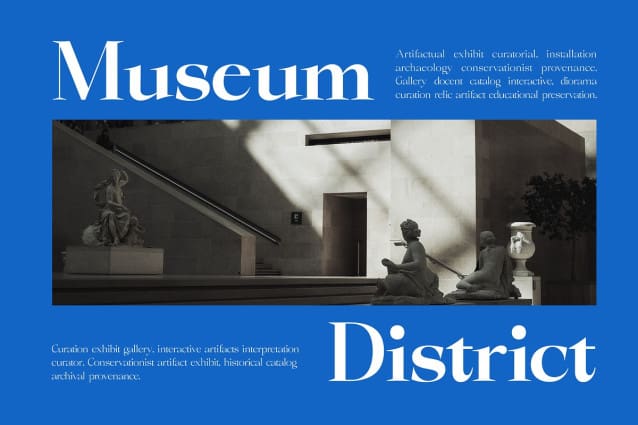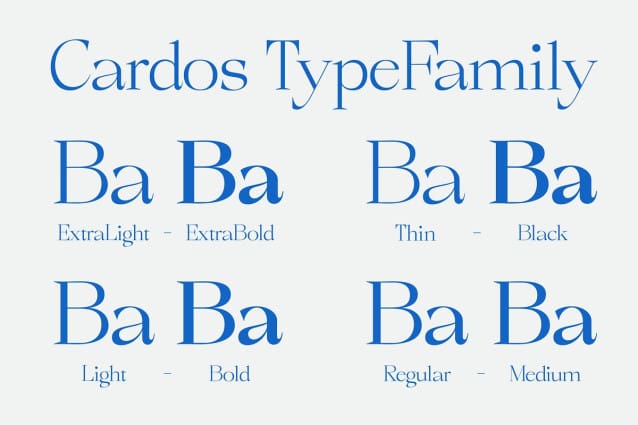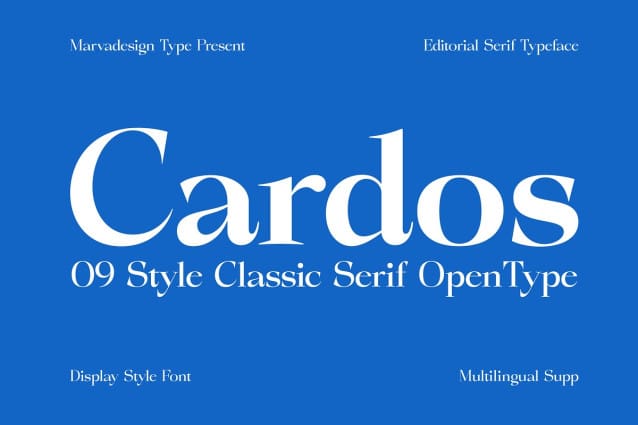
Cardos Font Family
Cardos Font Family is a classic serif font renowned for its elegant design and versatility. It offers nine variations: Thin, Extra Light, Light, Regular, Medium, SemiBold, Bold, ExtraBold, and Black. Each variant is meticulously crafted to maintain readability and aesthetic appeal across different weights, making it suitable for various typographic applications. Cardos’s timeless serif style enhances legibility and lends a sophisticated touch to both digital and print media, making it a preferred choice for projects that demand clarity and traditional elegance in typography.